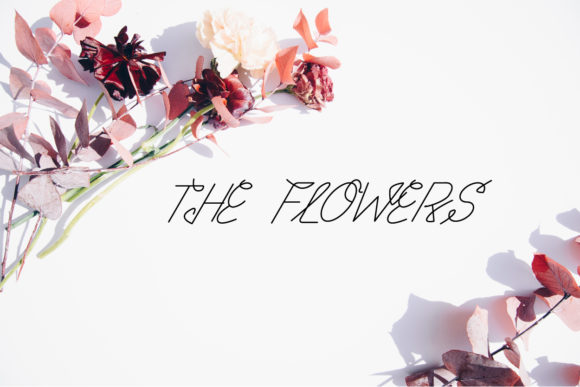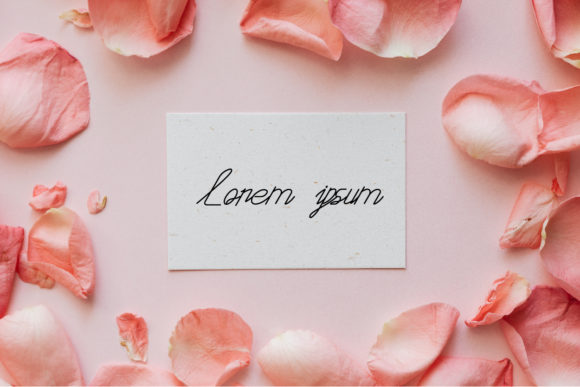
The Flowers Font
About The Flowers Font
The Flowers is a delicate and unique handwritten font. Thin and elegant, this font is ideal for each of the designs that may need a romantic touch!